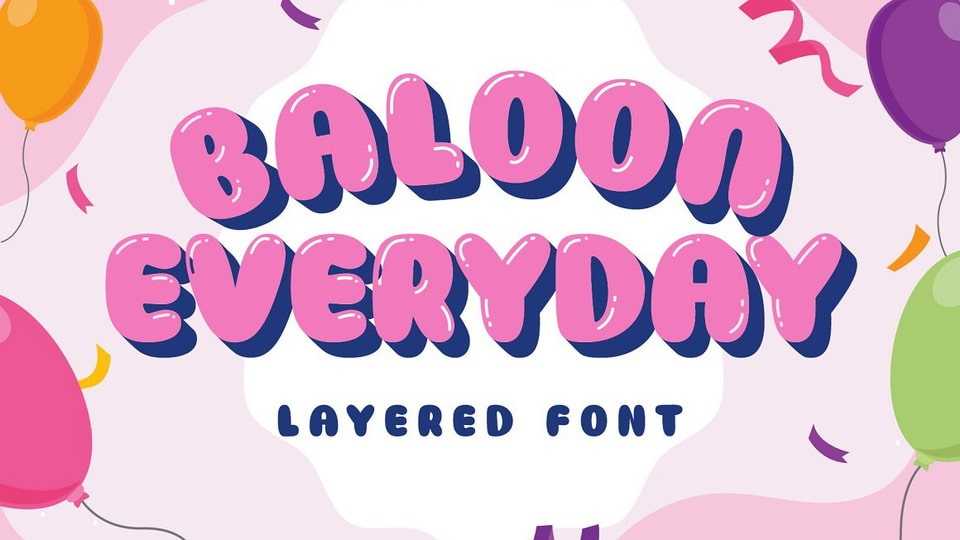
Download Baloon Everyday font, a funny layered typeface. Baloon Everyday is bold, fatty, rounded and funny and suitable for kids’ themes or entertaining design.